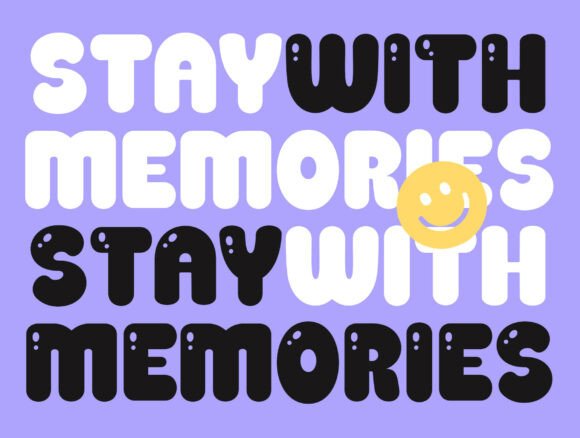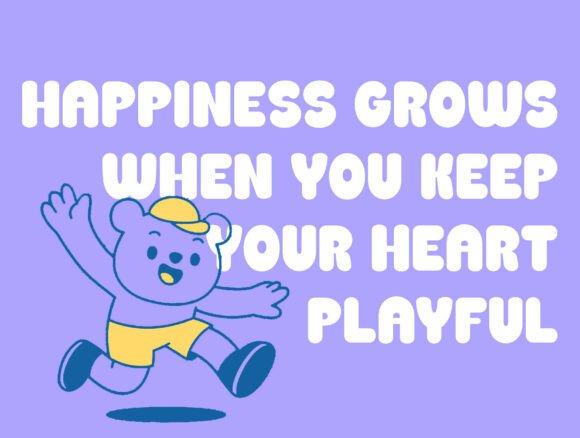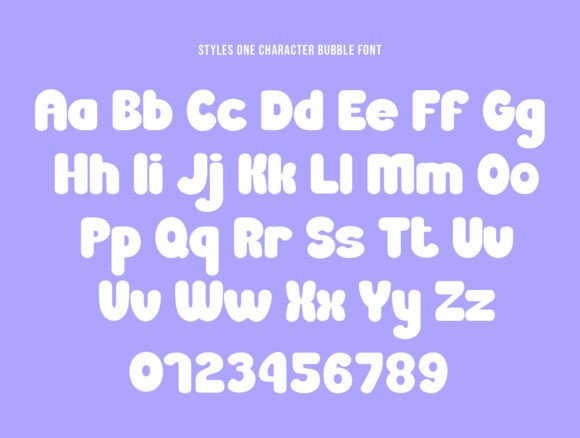
Introduction to Krombie Font
Have you ever stumbled upon the perfect design element that instantly elevates your creative project? For designers, this ‘aha’ moment is priceless. For me, it was discovering the Krombie Font – a game-changing, high-quality font that brings joy and personality to any design.
With its soft rounded shapes, smooth curves, and fun decorative details, the Krombie Font is a design resource that’s hard to resist. Whether you’re working on a kids-themed project, branding, packaging, or social media content, this versatile font adds a vibrant and lovable touch. Plus, with a transparent background, you can easily customize it to fit your design needs. And the best part? The Krombie Font is available for a free download, making it an accessible and valuable addition to your design arsenal.
Key Features of Krombie Font
- High-quality design resource ideal for creative projects, including graphics, logos, and digital art.
- Unique, modern design with a transparent background, allowing for seamless integration with any design element.
- Perfect for designers, artists, and creatives looking for a high-quality, free design resource to elevate their projects.
Honest Review: Krombie Font
As a designer, I’m always on the lookout for high-quality fonts that can elevate my creative projects. Recently, I stumbled upon the Krombie Font, and I’m excited to share my thoughts on this design resource.
- ✨ Unique and modern design aesthetic that’s perfect for futuristic and sci-fi inspired projects.
- ✨ High-quality font that’s crisp and clear, even at larger sizes.
- ✨ Transparent background, making it easy to use with various design elements.
- ⚠️ Limited font styles and variations, which may not be ideal for designers who need a wide range of options.
- ⚠️ Not suitable for projects that require a classic or traditional font style.
Overall, I’m impressed with the Krombie Font, and I think it’s a great addition to any designer’s toolkit. While it may not be the best fit for every project, it’s definitely worth considering for futuristic and sci-fi inspired designs. With its high-quality design and free download option, it’s a design resource that’s definitely worth checking out.
Common Use Cases for Krombie Font
The Krombie Font is ideal for a variety of creative projects, including social media graphics, presentations, reports, and even art projects. Its high-quality design and transparent background make it a versatile design resource that can be used in many different contexts.
Can I use the Krombie Font for print and digital projects?
Yes, the Krombie Font is suitable for both print and digital projects. Its high-quality design and scalable vector graphics make it perfect for a wide range of applications, from business cards and brochures to websites and mobile apps. Simply choose the font size and style that suits your project, and you’re ready to go.